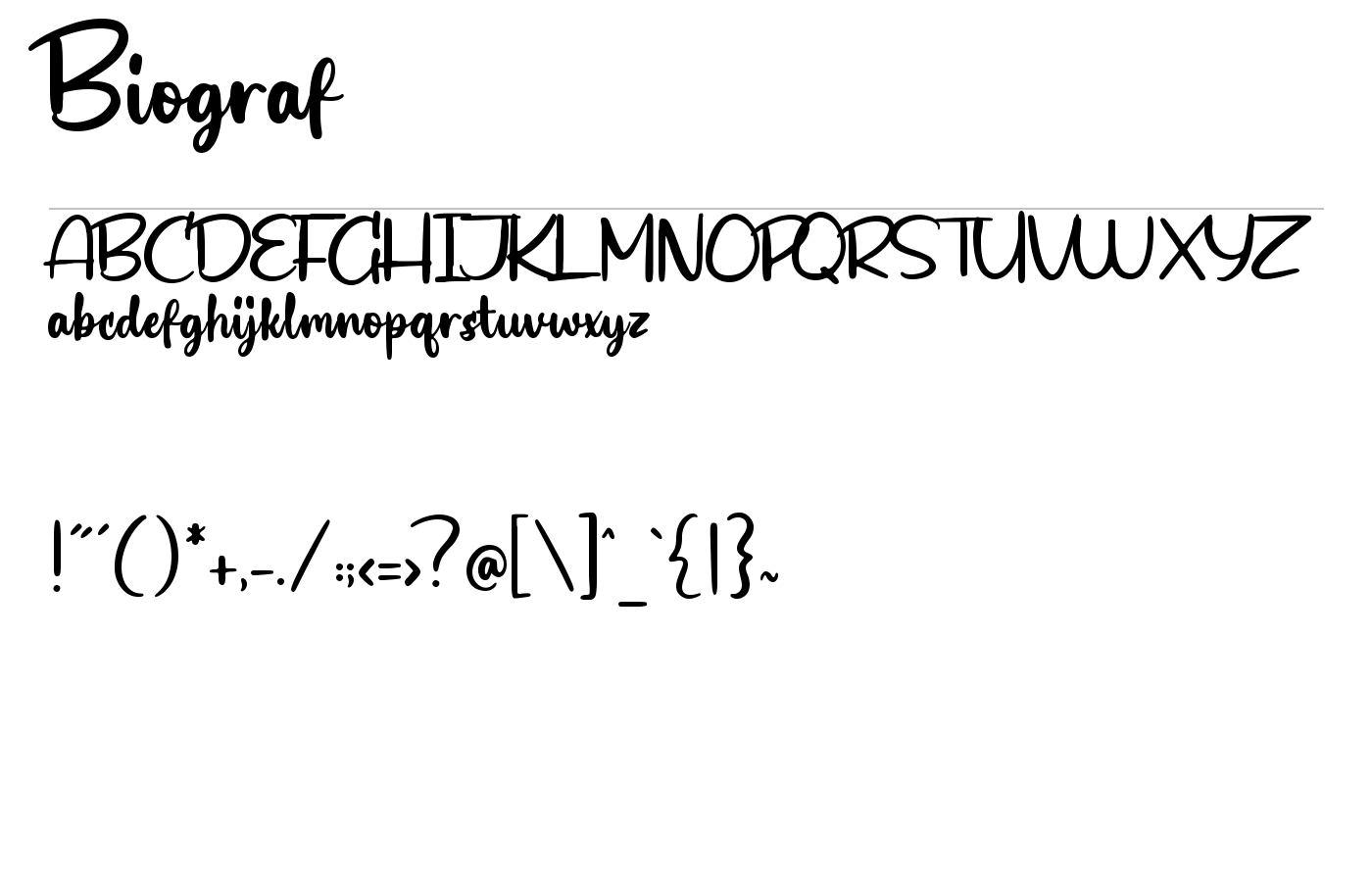
Biograf is a playful, casual script font with a hand-drawn feel, featuring lively, rounded strokes and a mix of tall uppercase letters and friendly, legible lowercase forms. Its airy spacing and organic curves make it ideal for creative projects, informal branding, and designs needing a warm, approachable personality. This font works wonderfully for logos, packaging, and headlines that want to convey friendliness and personal touch.
Biograf Font
About Biograf Font
| Font family | Biograf Font |